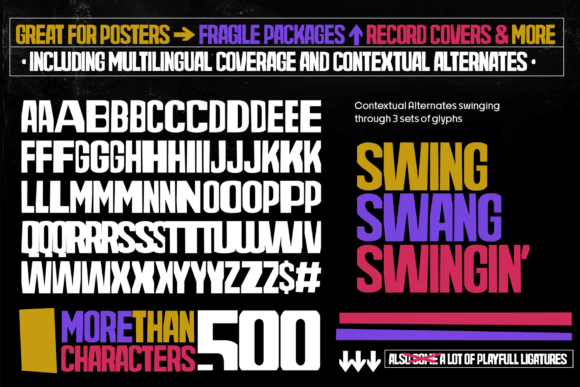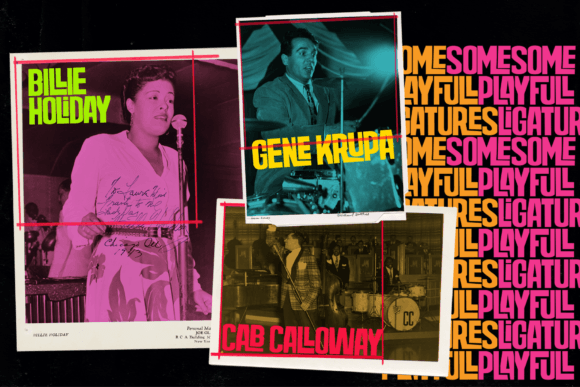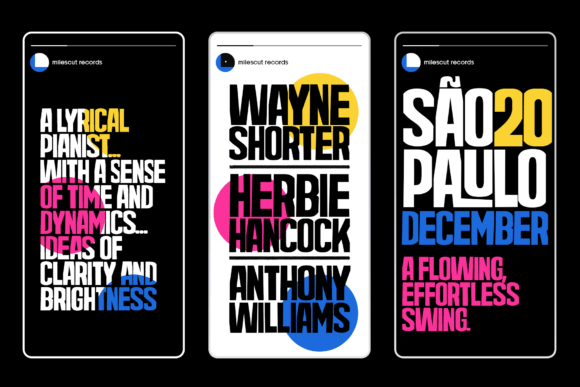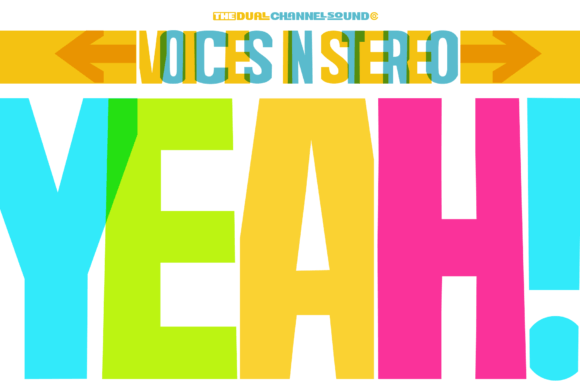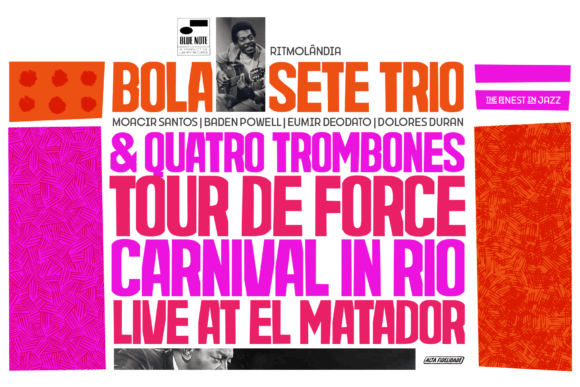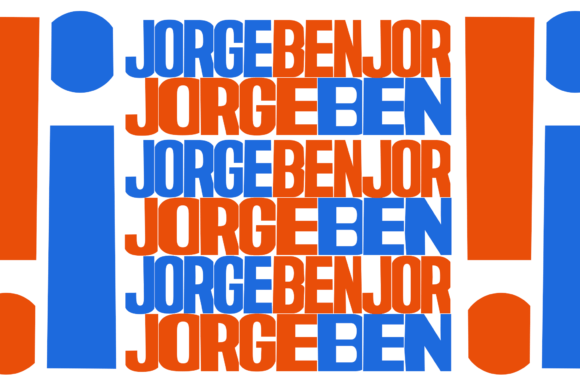
Introduction to Milescut Font
Milescut is a display typeface inspired by some seminal covers of the graphic designer and photographer Reid Miles created for the Blue Note Records between the 1950s and 1960s.
Miles made almost 500 covers for Blue Note in this period, including some using the hand-cut technique that consists basically in doing vertical cuts in capital letters and numerals to create a unique style Milescut is a tribute to this small “cut”😬 in his trajectory within the greatest record label of all time.